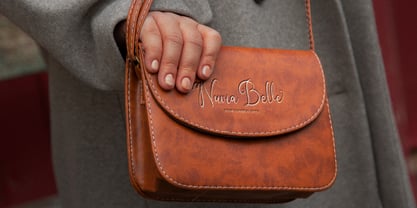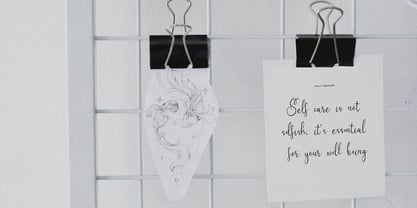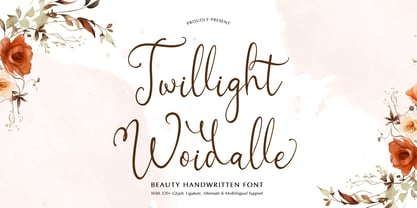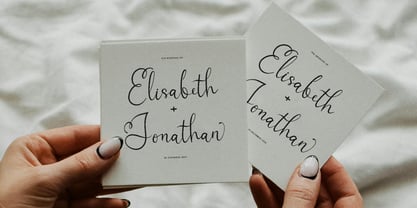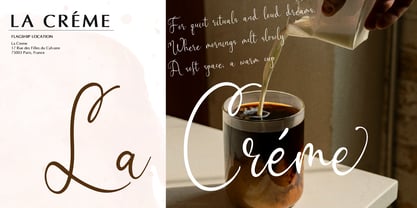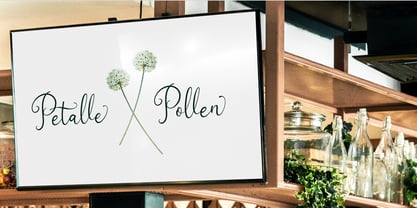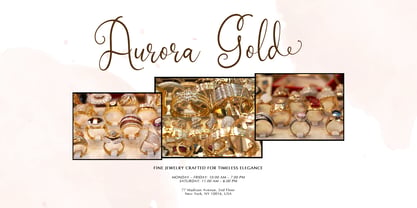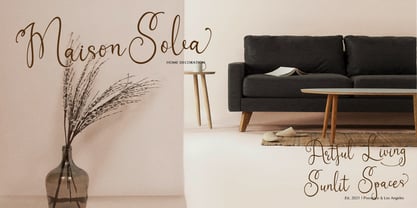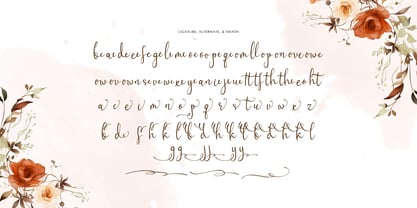
Twillight Woidalle
by Tini Fitriani
The Twillight Woidalle Font Family was designed by and published by Tini Fitriani. Twillight Woidalle contains 2 styles and family package options. More about this family
Twillight Woidalle | Beauty Handwritten Font, from Gracetypestudio, suitable for any projects such as: logos, branding projects, homeware designs, product packaging, mugs, quotes, posters, shopping bags, t-shirts, book covers, name card, invitation cards, greeting cards, label, photography, watermark, special events, and all your other lovely projects that need a Beauty Handwritten Font taste.
• Regular and Italic
• Standard glyphs
• Alternate and Ligature
• Fonts include multilingual support